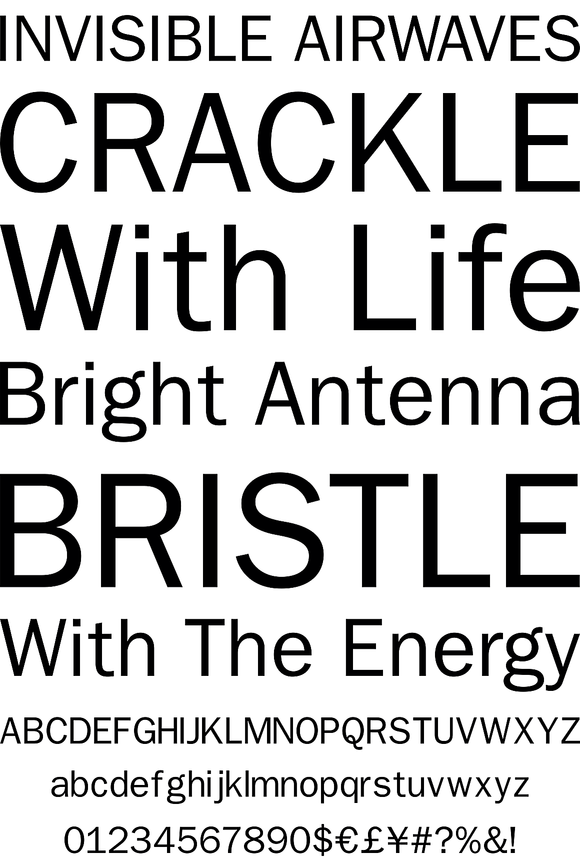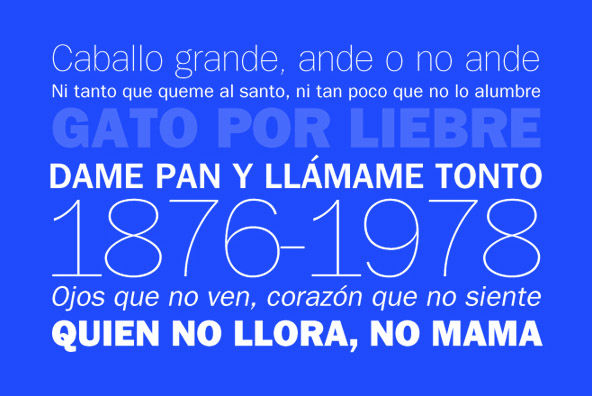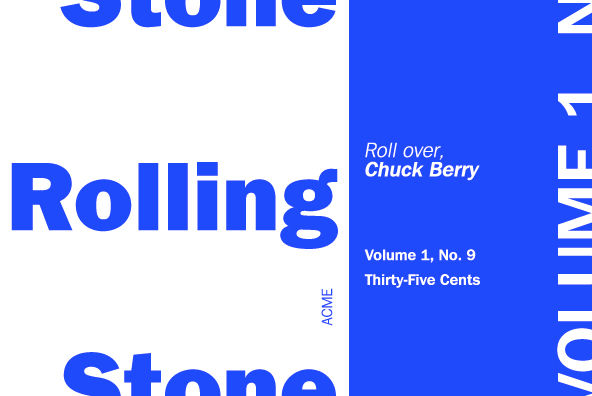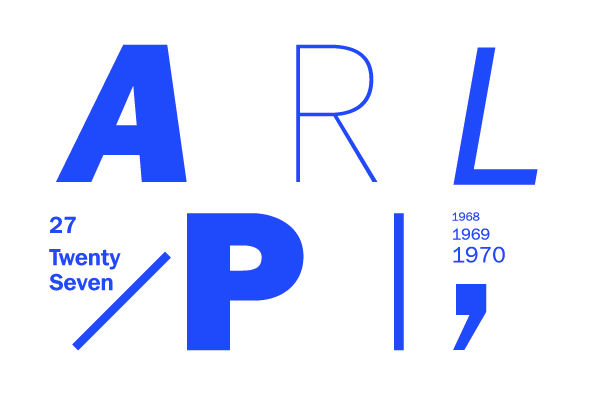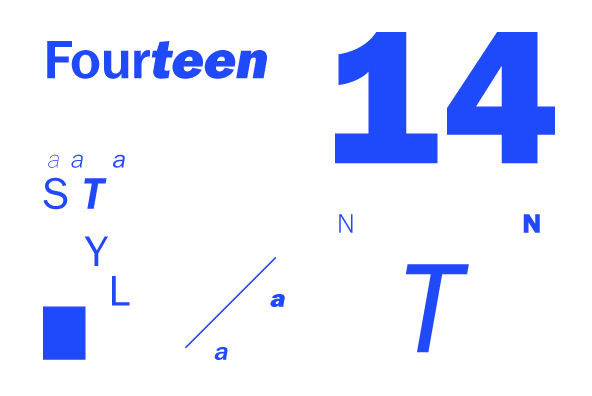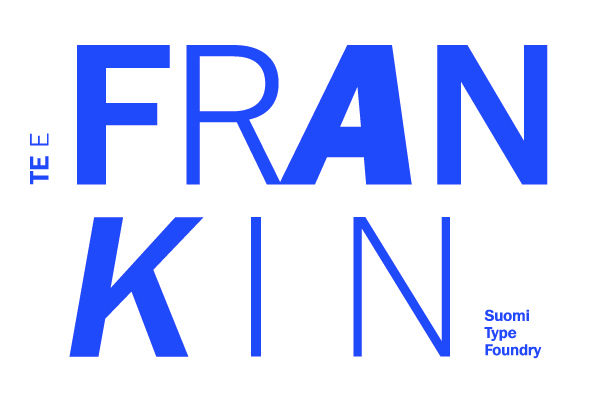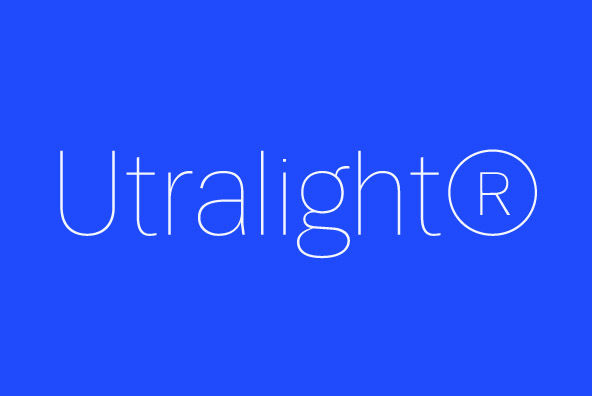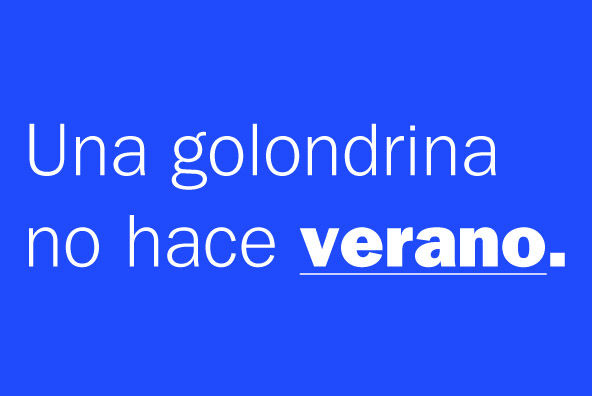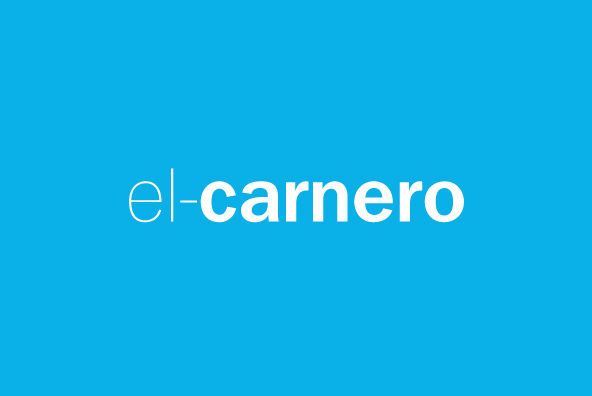
Tee Franklin
Foundry: Suomi Type Foundry
Vogue magazine (UK) commissioned this typeface for their magazine re-design in 2001. After studying the originals of Morris Fuller Benton and the existing versions, this font was designed with all new thin weights. Just when the family was finished, Vogue informed that they had decided to use American Typewriter instead. Oh well, the good news is you now have the option to buy what would have been an exclusive typeface! But here is a true classic typeface with a facelift. The pun intended.
Tee Franklin has seven weights with obliques, the Heavy being just slightly heavier than the existing versions from Adobe and ITC, and moving down to totally new Ultra Light, using Luc(as) de Groot's formula to keep the weights optically correct. The glyphs are the same as the Morris Fuller Benton's original from 1902, except for the upper case Q, which was re-designed with a loop in the counter for added differentiation.